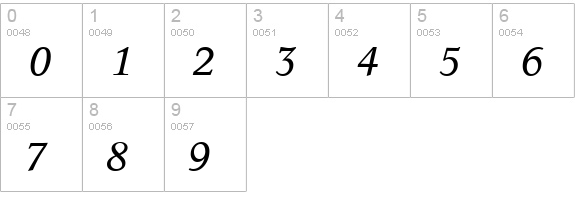
C790-Roman-Italic Font Details
C790-Roman-Italic is a distinctive, italic variant in the C790 typeface family \xE2\x80\x94 well suited to design and typography projects.
The C790-Roman-Italic font exudes a timeless elegance and sophistication, making it a perfect choice for a wide range of design projects. With its graceful curves and classic styling, this font effortlessly combines tradition with a modern twist. The slender serifs and delicate strokes of the italic variation add a touch of refinement and sophistication to any text. Designed with attention to detail and precision, the C790-Roman-Italic font is versatile and can be used for various purposes such as branding, editorial design, invitations, and more. Its readability and legibility make it an excellent choice for both print and digital projects. Best of all, the C790-Roman-Italic font is available for free download at FontsMarket.com. Don't miss out on this opportunity to enhance your designs with this exquisite font that combines beauty and functionality seamlessly. Download it today and elevate your projects with the timeless charm of C790-Roman-Italic font.